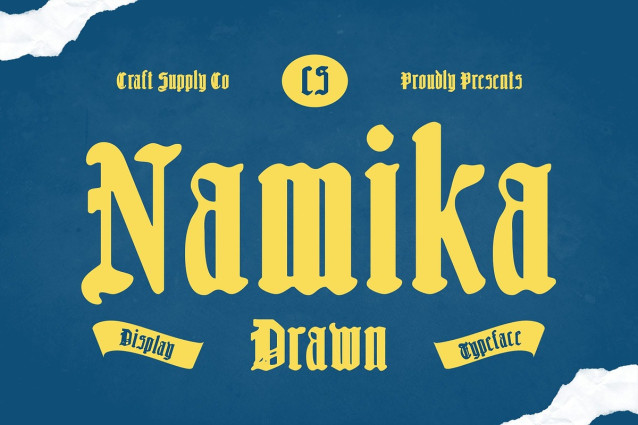
CS Namika Drawn Font
CS Namika Drawn Font – This font features bold, decorative Blackletter shapes that command attention. Its strong, ornamental structure evokes tradition and authority, making it ideal for designs that require a dramatic and classic presence.
Handmade Drawn Texture Enhanced with a drawn effect, this display font brings an artisanal, textured quality to each character. The handmade detailing adds depth and personality, transforming standard Blackletter typography into expressive, visually engaging artwork.
Dramatic and Expressive Style Balancing historical elegance with creative flair, this artistic and handmade font conveys mystery and drama in every stroke. Its expressive letterforms make it perfect for projects seeking a bold, unique, and memorable typographic identity.
Versatile Display Applications Ideal for posters, branding, book titles, and creative projects, this bold and expressive font adapts seamlessly to multiple contexts. Its Blackletter roots and drawn artistry combine to create designs that are both classic and strikingly distinctive.
Classic Character with Modern Impact With intricate detailing and a tactile handmade texture, this cultural and historic font maintains readability while exuding a strong visual personality. This combination ensures that your designs stand out, offering a timeless yet uniquely artistic aesthetic. Its handmade flair adds authenticity and depth, making each project feel meticulously crafted and visually compelling.